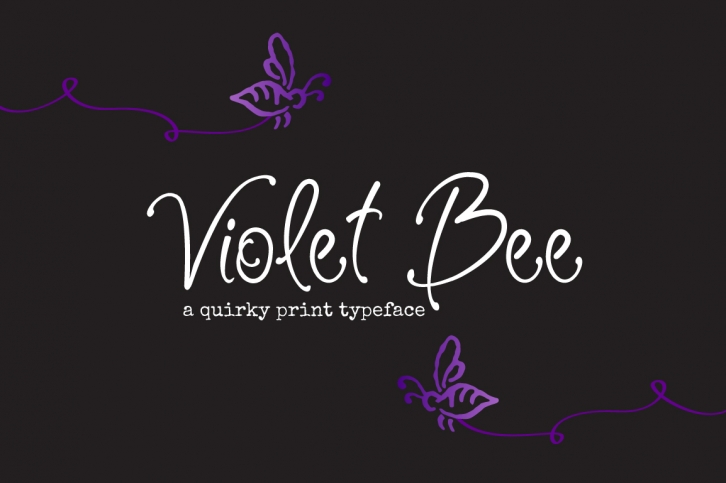
Violet Bee is a trendy and unique font with an authentic style. It was designed by Joanne Marie and it's a great choice for creative people who need such a font. It was released on July 31, 2017 and the file size is 17.9 MB. Violet Bee will add an organic vibe to any design idea!